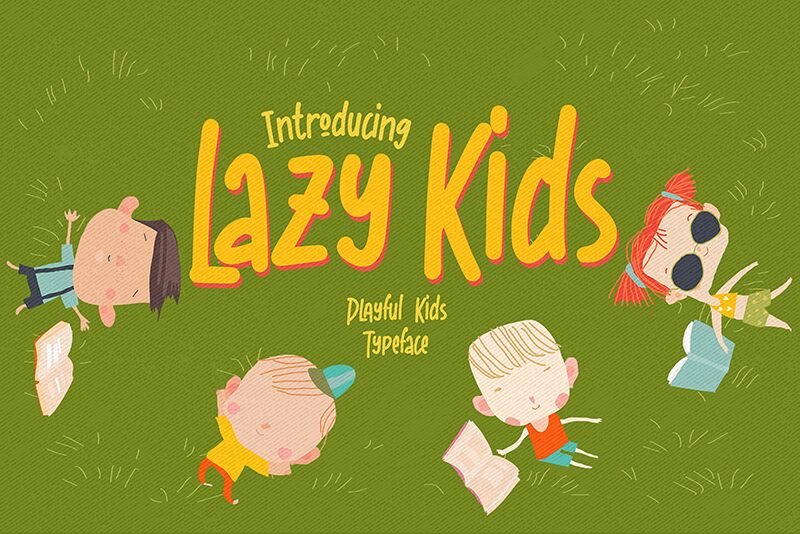
Lazy Kids
Lazy Kids font is a charming free display font by Gassstype you can use in any project where youthfulness is required. The playfully rounded letters and casual style put this typeface at the same level of informality as comic sans. It can be even considered an informal script but without the characteristic cursive lines. Saturated colors will shine in this young font that likes big bold texts with smooth curves.
Use Lazy Kids in kids book covers, cartoon posters, advertising, branding materials and packaging designs. This happy energetic typeface makes a perfect fit for headlines or titles especially as opposed to long paragraphs of text where readability is reduced due to its condensed nature.